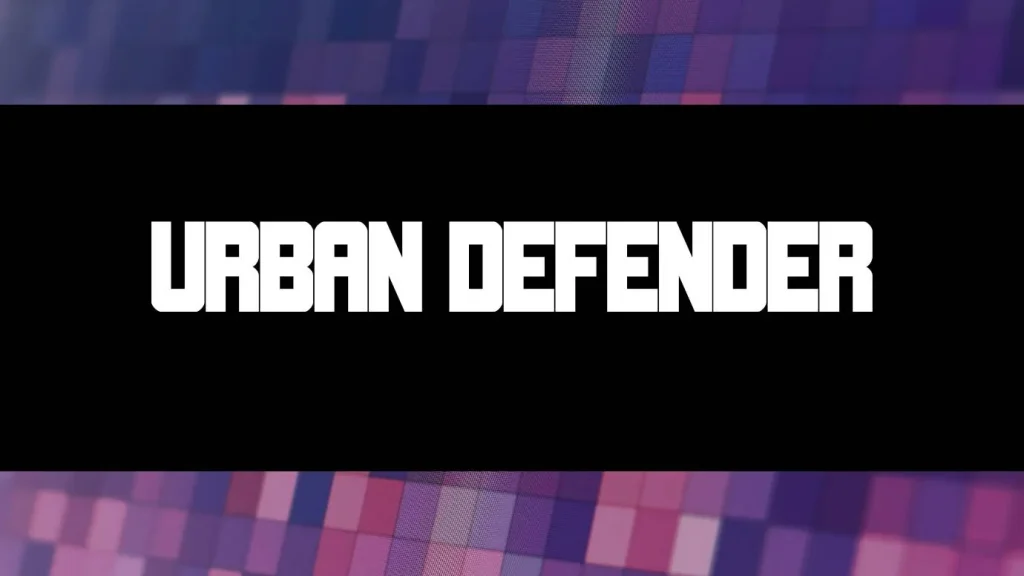
In other words, which could be accessed without difficulty by designers around the world. To create a unique and eye-catching design, you should use this
Urban Defender Font is a unique style that comprises unique shape characters with elegant design. The design is available as OpenType/TrueType files. There are 252 characters in this style with numerous language assistance.
In other words, which could be accessed without difficulty by designers around the world. To create a unique and eye-catching design, you should use this typeface in combination with smooth font.
This section contains a preview where we choose special characters, 26 alphabetic letters, and numbering 0-10 to evaluate the typeface. Because its look is extremely amazing. It is extensively utilized to create beautiful backgrounds.
In addition to creating reports, quotes, social media posts, logo designs, greeting cards, wedding cards, and art designs, this font style can be used in posters, banners, and posters. It is a unique typeface that has a simple, modern, and classic design with upper and lowercase characters.
The designer of this typeface created this style to create the best project designs possible. Also, you can use this font style when creating labels, watermarks, and modern advertisements.
This is a San’s serif style and the designer is Iconian Fonts. It has a unique style that will make your projects amazing.
You can use this typeface for a wide range of designs, including logos, artwork, brands, fashion, websites and blogs, theme designs, and visiting cards.